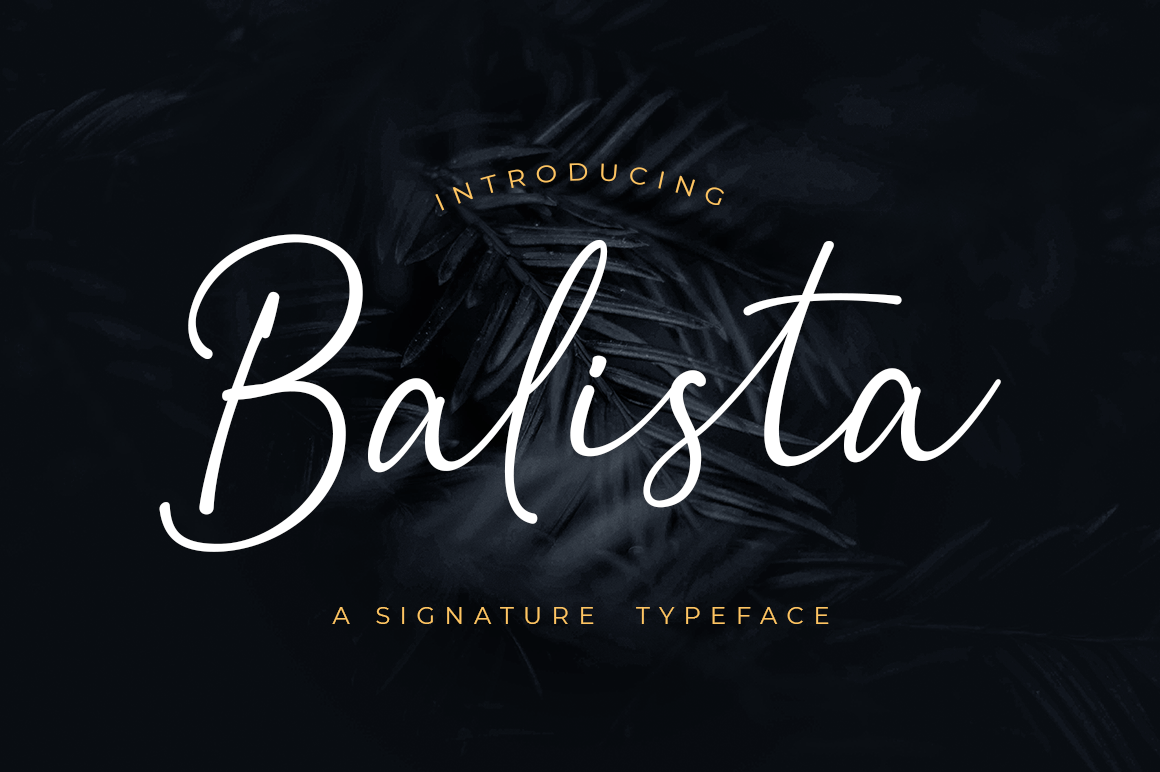
Balista is a signature typeface with natural handwritten style. Balista is perfect for branding, logo, wedding designs, social media posts, advertisements, product packaging, product designs, label, photography, watermark, invitation, stationery and any projects that need handwriting taste.